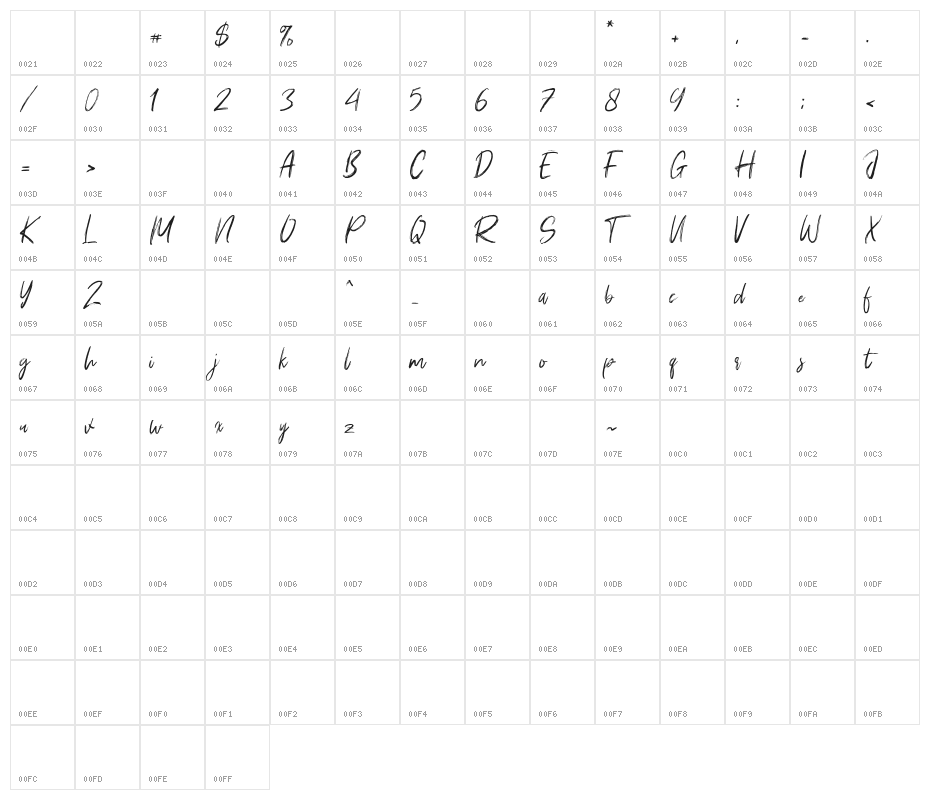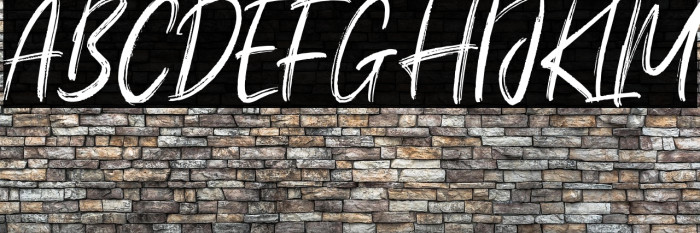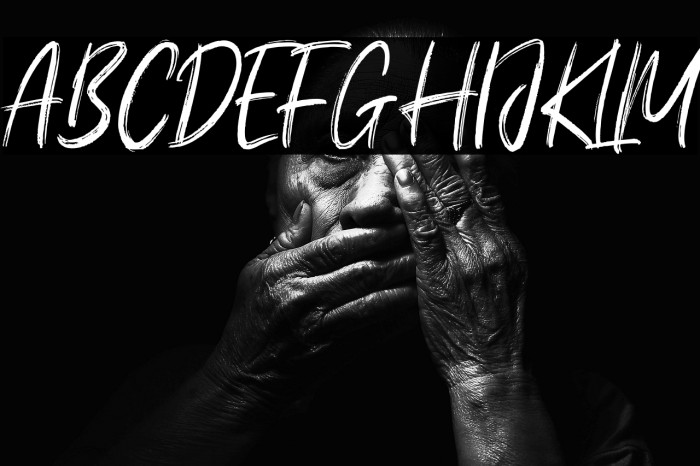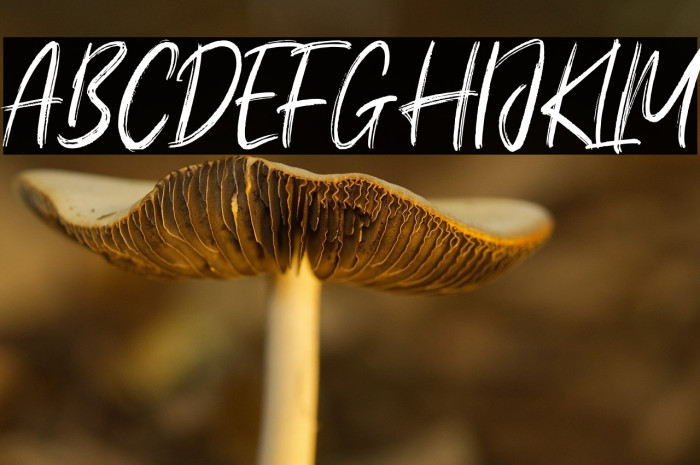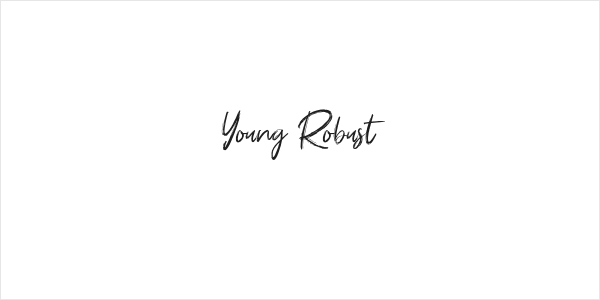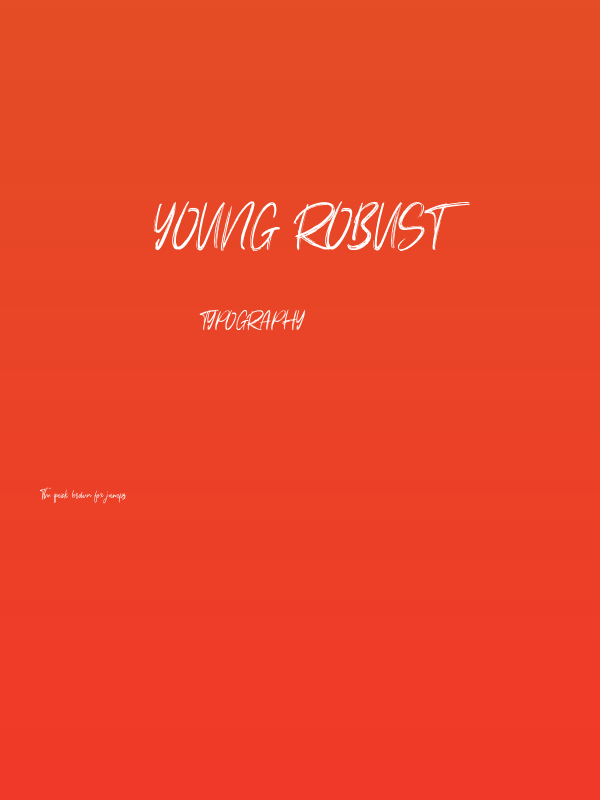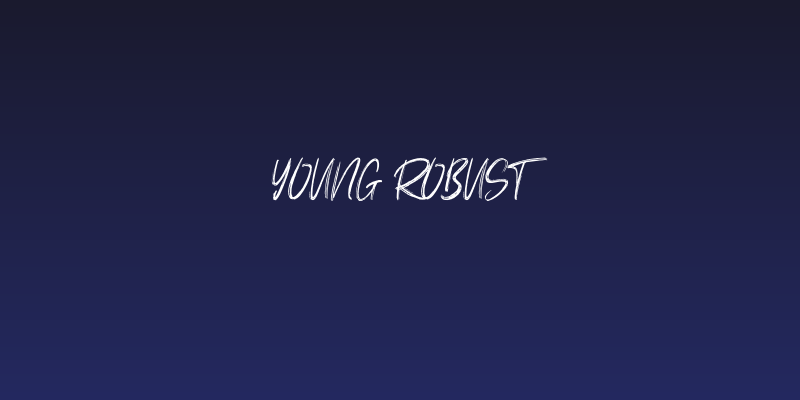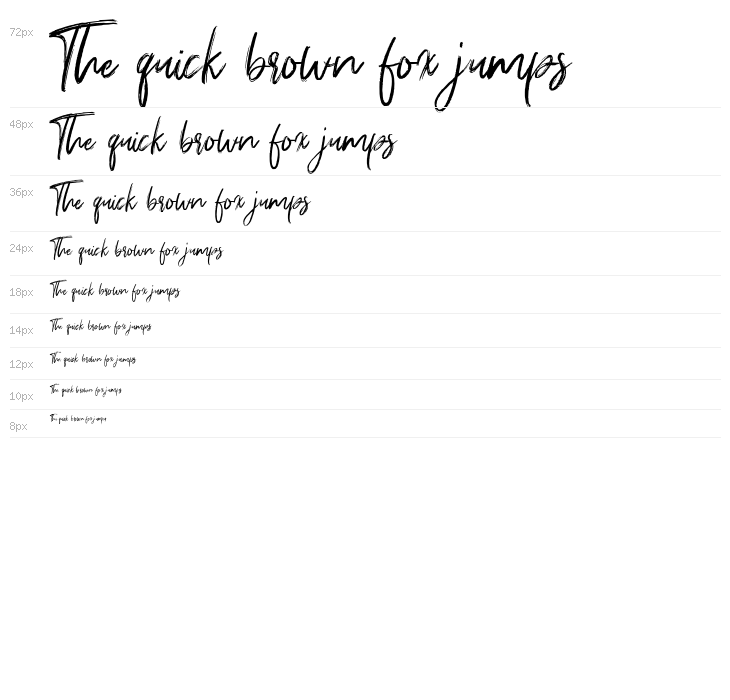
Young Robust Font
Young Robust Description
This font exudes a dynamic and energetic style, characterized by its bold and expressive brush strokes. The letters are crafted with a sense of movement and flair, giving them a hand-drawn appearance. The uppercase letters are particularly striking, with varying stroke widths that add a sense of rhythm and spontaneity. The lowercase letters maintain this lively aesthetic, offering a cohesive look throughout. Numbers and special characters are equally expressive, making this font versatile for creative projects. Its unique style is perfect for capturing attention and conveying a sense of creativity and individuality.
| Proposed Projects | Ideal for branding, posters, social media graphics, and artistic projects. |